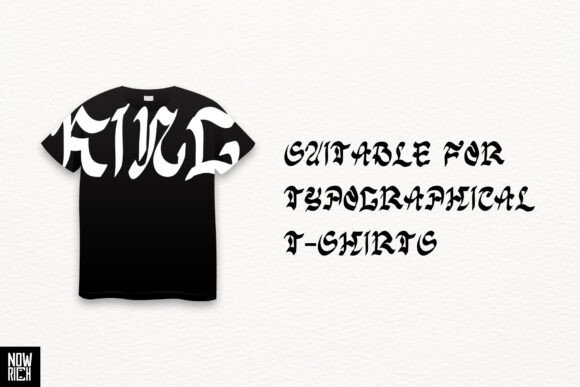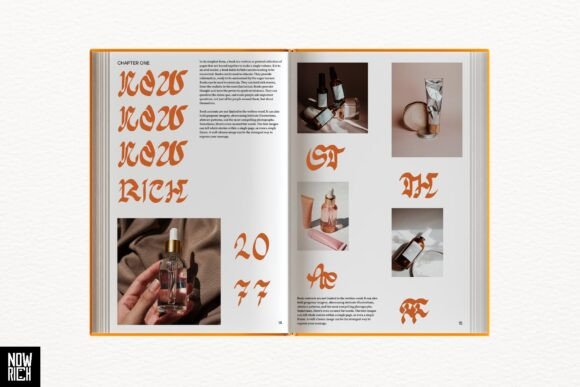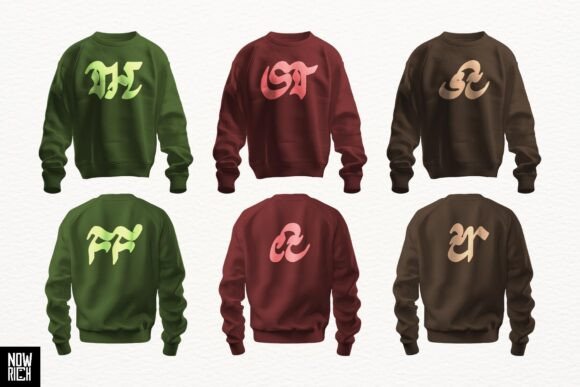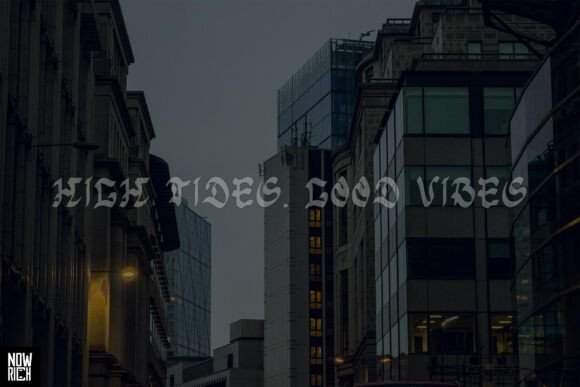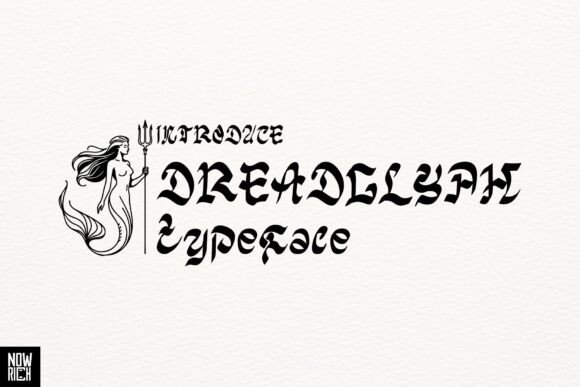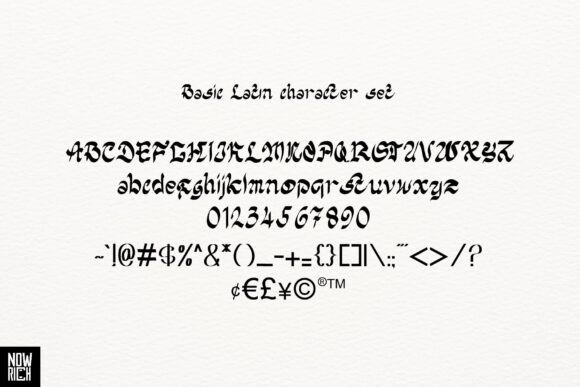
Dreadglyph Font: Unleash the Power of Bold Blackletter Typography
In the realm of typography, few font styles evoke the same level of grit and attitude as blackletter. For centuries, this iconic style has been a staple of bold statements and unapologetic expression. Now, introducing Dreadglyph Font, a bold reinterpretation of the timeless blackletter font style that injects a distinctly masculine edge with the raw energy of urban street design.
A Modern Take on a Timeless Classic
Dreadglyph Font takes the traditional blackletter style and turns it on its head, blending elements of heritage with a contemporary flair that demands attention. The result is a captivating typeface that exudes rugged authenticity and innovative style. With its unique fusion of old and new, Dreadglyph Font is poised to become the go-to choice for designers and crafters looking to make a statement.
Key Features of Dreadglyph Font
• Uppercase and Lowercase Characters: Dreadglyph Font boasts a comprehensive set of uppercase and lowercase characters, each carefully crafted to convey a sense of strength and attitude.
• Bold and Edgy: With its bold lines and sharp edges, Dreadglyph Font is the perfect choice for designs that require a strong, unapologetic presence.
• Urban Street Design Inspiration: The font’s gritty energy is inspired by the urban street design scene, lending it a distinctly masculine edge that’s hard to ignore.
• Versatility: Dreadglyph Font is designed to be versatile, making it suitable for a wide range of applications, from branding and logos to tattoos and illustrations.
Perfect for Graphic Projects that Demand Attention
Whether you’re a designer looking to create a bold brand identity or a crafter seeking a font that will make your tattoos and illustrations stand out, Dreadglyph Font is the perfect choice. Its unique blend of traditional and contemporary elements ensures that your designs will command attention and leave a lasting impression.
Applications for Dreadglyph Font
• Branding: Use Dreadglyph Font to create bold, eye-catching logos that capture the essence of your brand.
• Logos: From business cards to billboards, Dreadglyph Font is the perfect choice for logos that demand attention.
• Tattoos: With its bold lines and gritty energy, Dreadglyph Font is an excellent choice for tattoo designs that require a strong, unapologetic presence.
• Illustrations: Add a touch of urban grit to your illustrations with Dreadglyph Font, perfect for creating bold, eye-catching artwork.
Why Choose Dreadglyph Font?
In a world where typography plays a crucial role in communication, Dreadglyph Font offers a unique opportunity to elevate your graphic projects with a bold, unapologetic voice. By choosing Dreadglyph Font, you’ll gain access to a versatile typeface that:
• Makes a Statement: Dreadglyph Font is designed to command attention and make a lasting impression.
• Combines Tradition and Innovation: With its blend of traditional blackletter elements and contemporary flair, Dreadglyph Font offers the best of both worlds.
• Exudes Rugged Authenticity: The font’s gritty energy and distinctly masculine edge ensure that your designs will exude a sense of rugged authenticity.
Dreadglyph Font is more than just a typeface – it’s a statement. With its bold reinterpretation of the timeless blackletter font style, infused with the gritty energy of urban street design and a distinctly masculine edge, this font is poised to revolutionize the world of typography. Whether you’re a designer, crafter, or simply someone who appreciates bold typography, Dreadglyph Font is an essential addition to your toolkit. So why wait? Unleash the power of Dreadglyph Font and take your graphic projects to the next level.